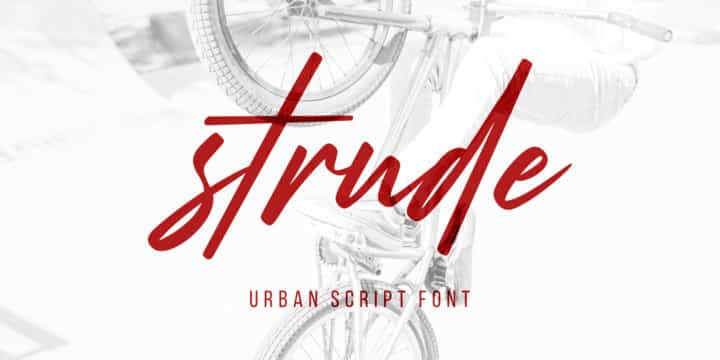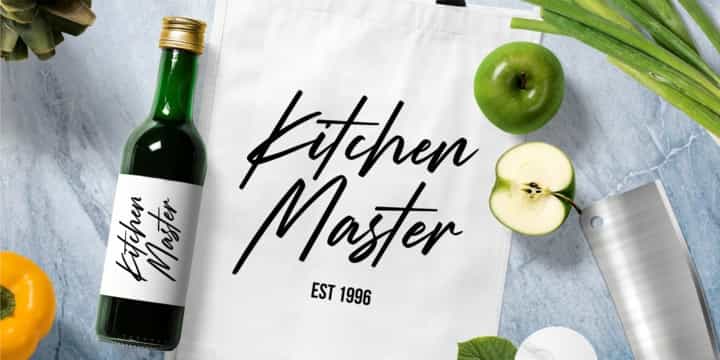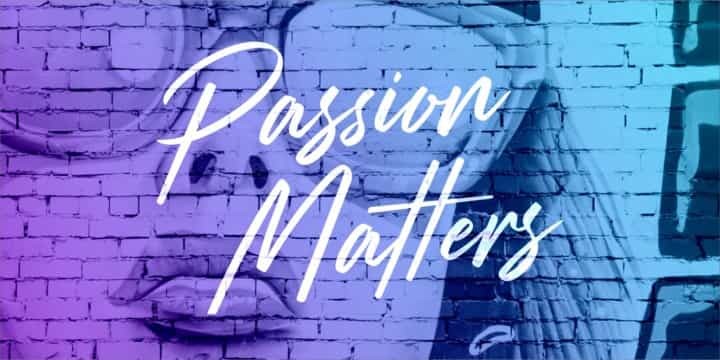
Strude designed and shared by Letteralle. Strude Font this is modern urban style font script. Strude comes with stylistic set (uppercase & lowercase), ligatures, and also supports multi-language. With letters that have a distinctive style, Strude is perfect for logo design, merch, display, apparel, and many more.